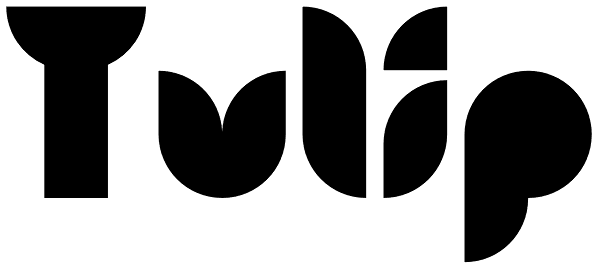
Tulip
I've had an interest in typography ever since my college days, even submitting my NDD thesis on the subject. The basic concept for this typeface stems from that early creative period, hence the obvious 60’s retro feel. It’s only recently that I've...